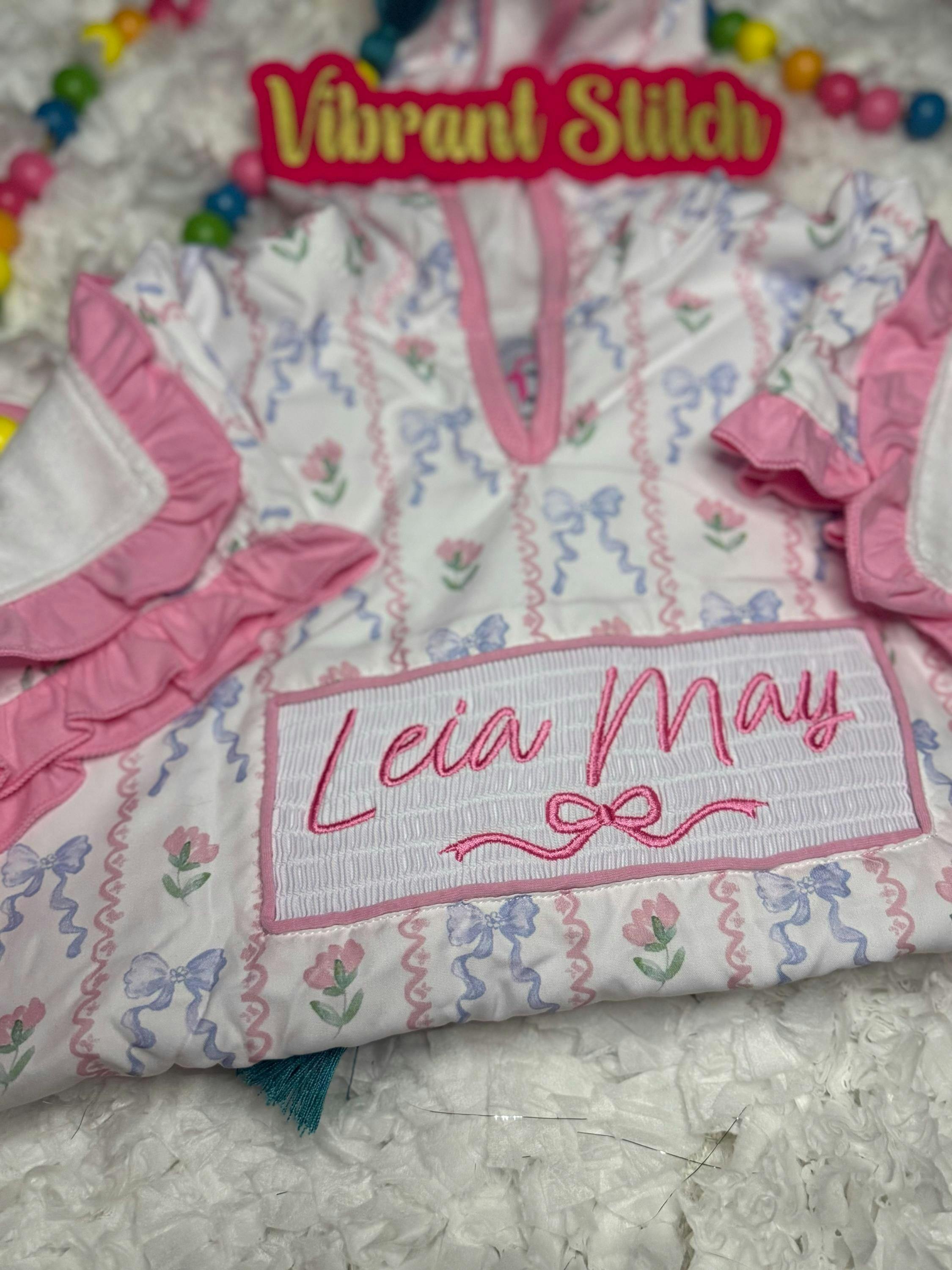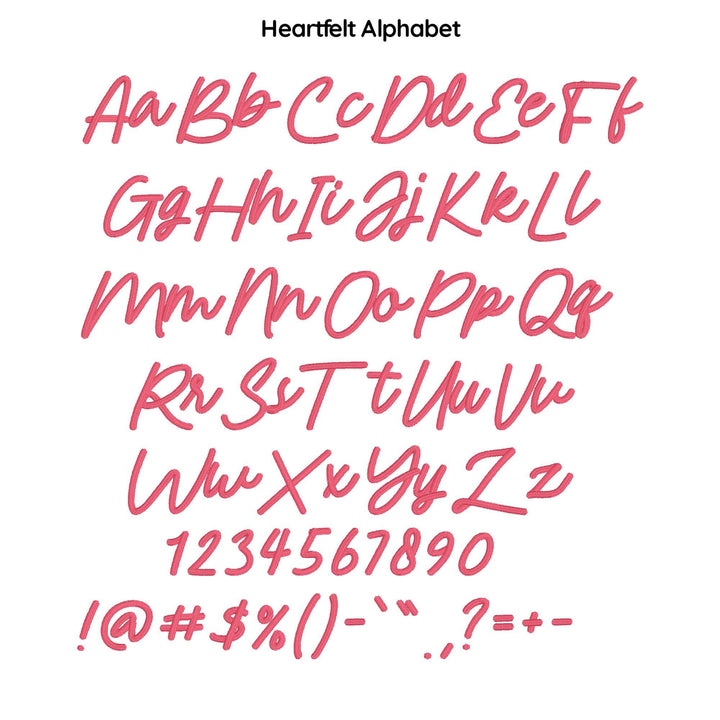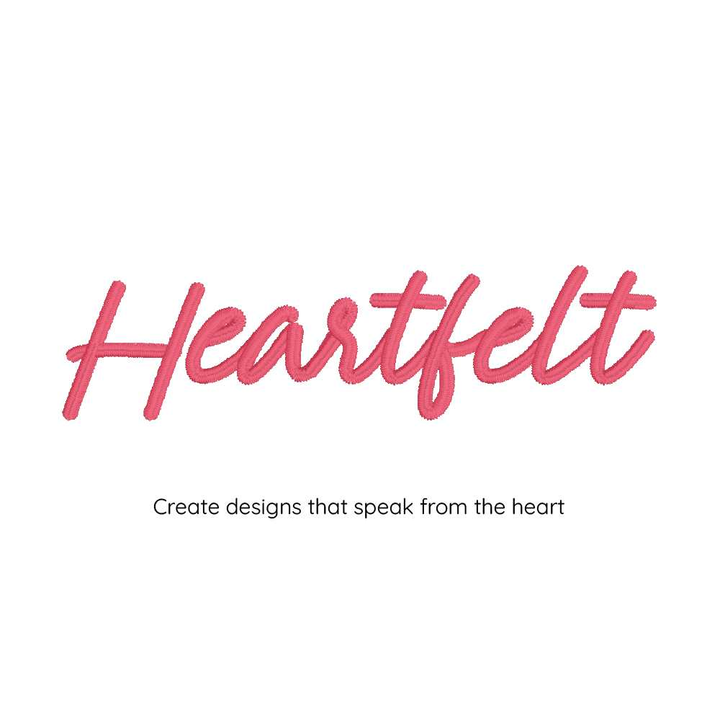
Heartfelt Digital Font
Introducing Heartfelt, the embroidery font that will add a touch of warmth and sincerity to your designs. With its gentle curves and graceful lines, Heartfelt evokes feelings of love and compassion, making it the perfect choice for projects that require a personal touch.
Crafted with meticulous attention to detail, Heartfelt is a versatile font that can be used for a wide range of embroidery designs. Whether you're stitching a heartfelt message on a pillowcase or adding a personal touch to a jacket, Heartfelt will help you create a design that is both elegant and expressive.
Stitch Type: Satin Stitch & Split Satin Stitch